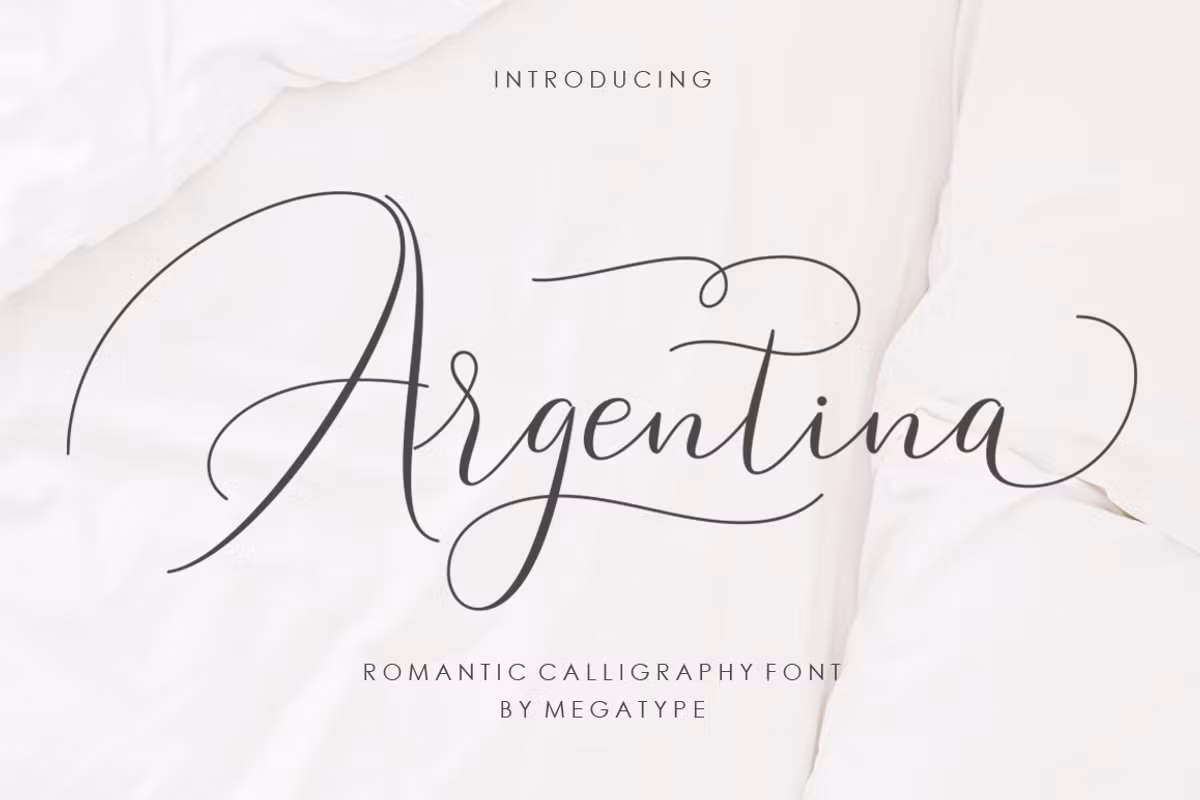
Argentina Script Font Free Download is a beautifully flowing script typeface that captures elegance, romance, and sophistication in every stroke. Inspired by classic calligraphy, this font is perfect for wedding invitations, branding, social media graphics, and any project where you want to add a touch of graceful charm. Its smooth curves and natural letterforms make it feel both timeless and modern.
What makes Argentina Script Font Free Download stand out is its attention to detail—stylish swashes, ligatures, and alternates that give you full creative control and a handmade feel. Whether you’re designing logos, signature-style titles, or personalized gifts, this font delivers stunning visual impact with an effortlessly chic vibe.